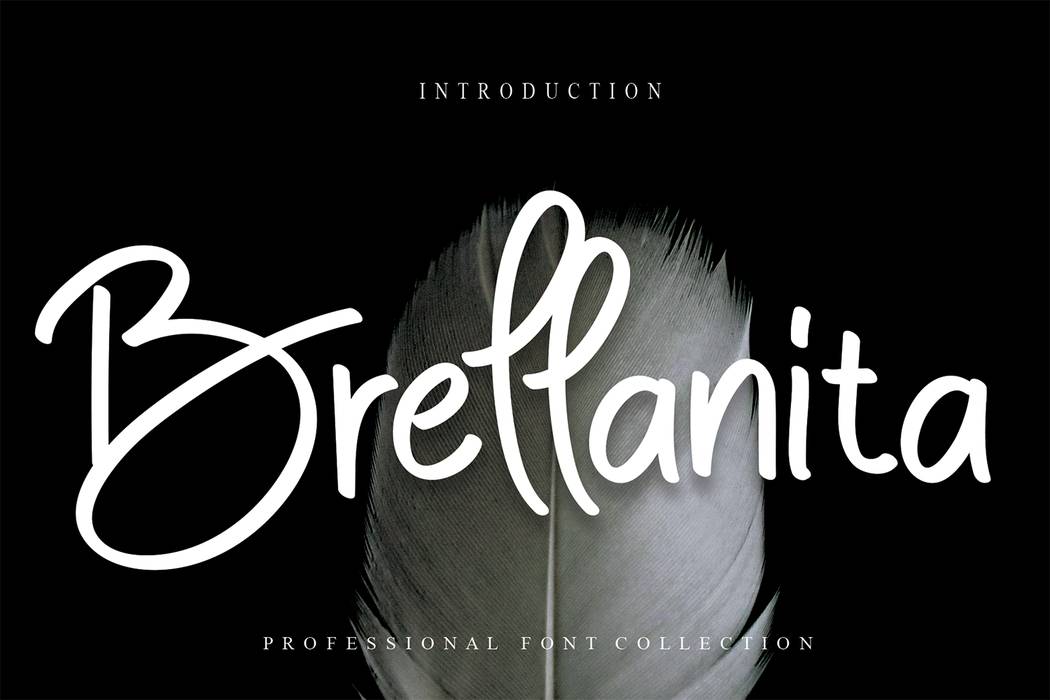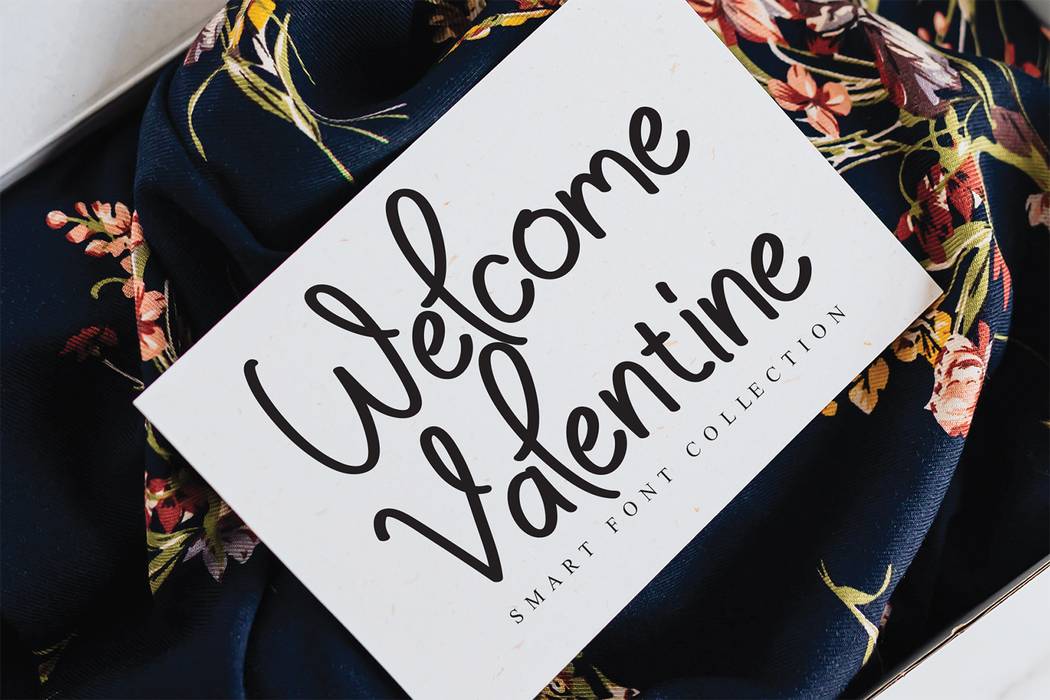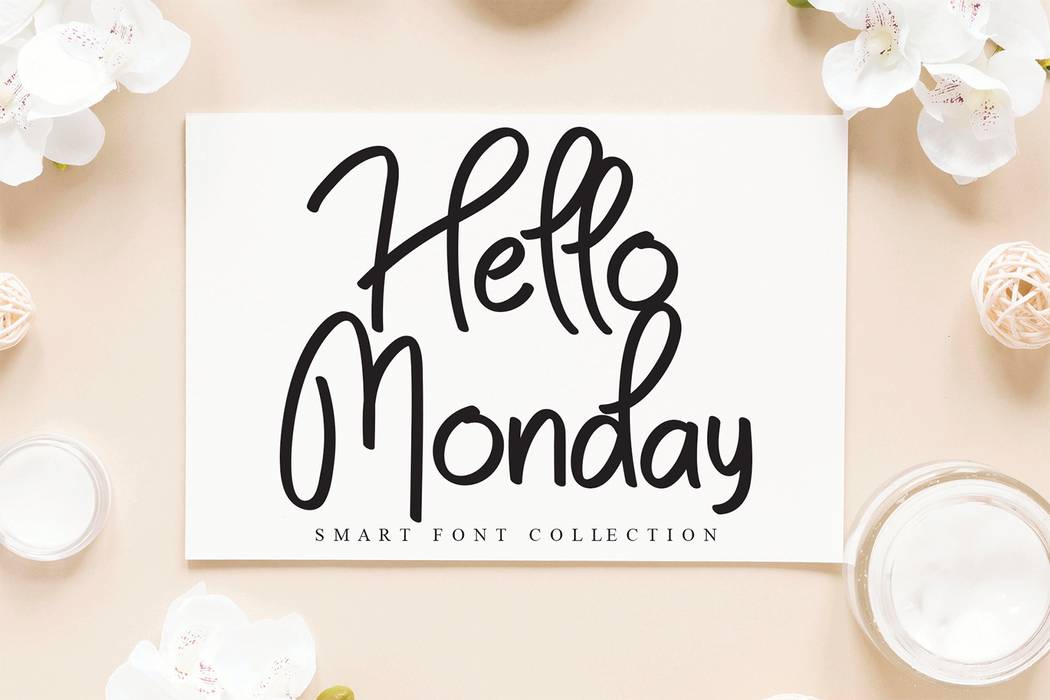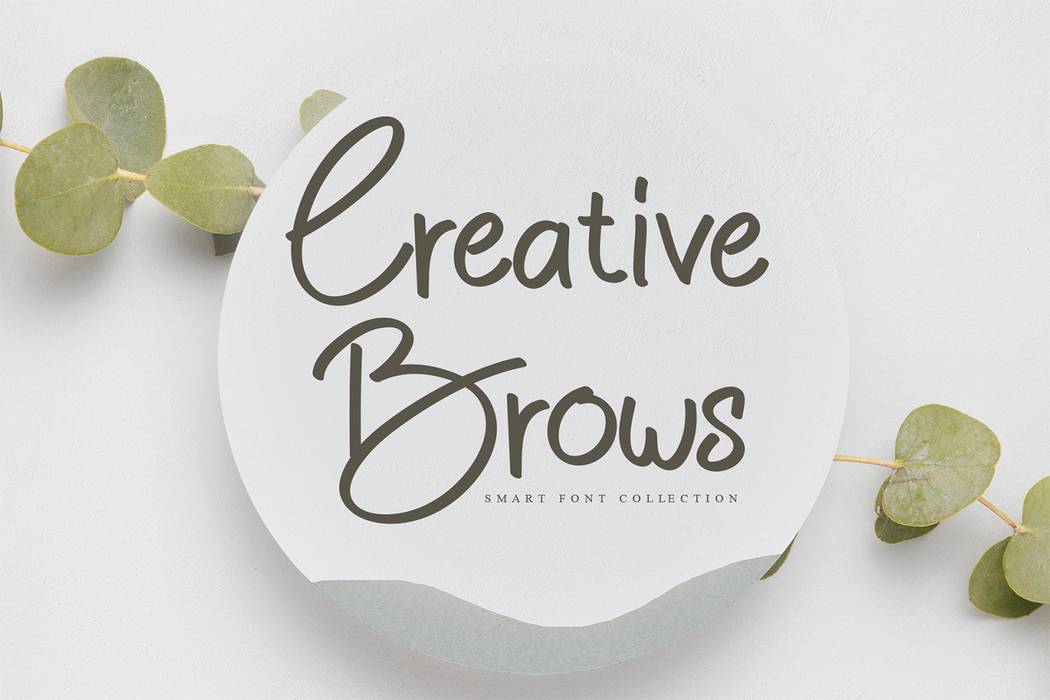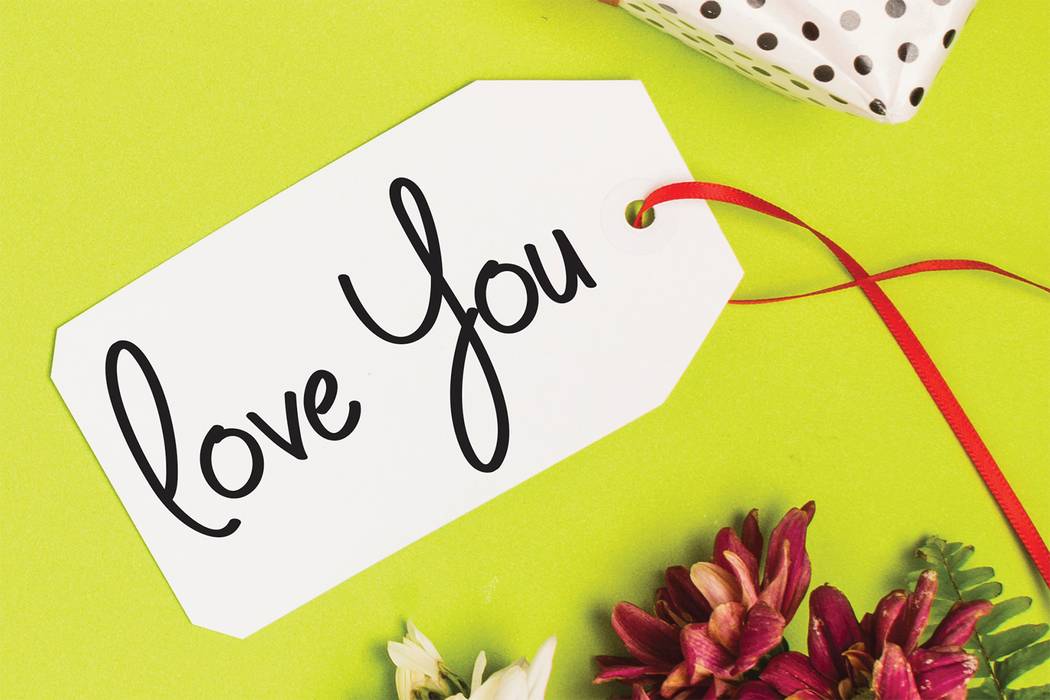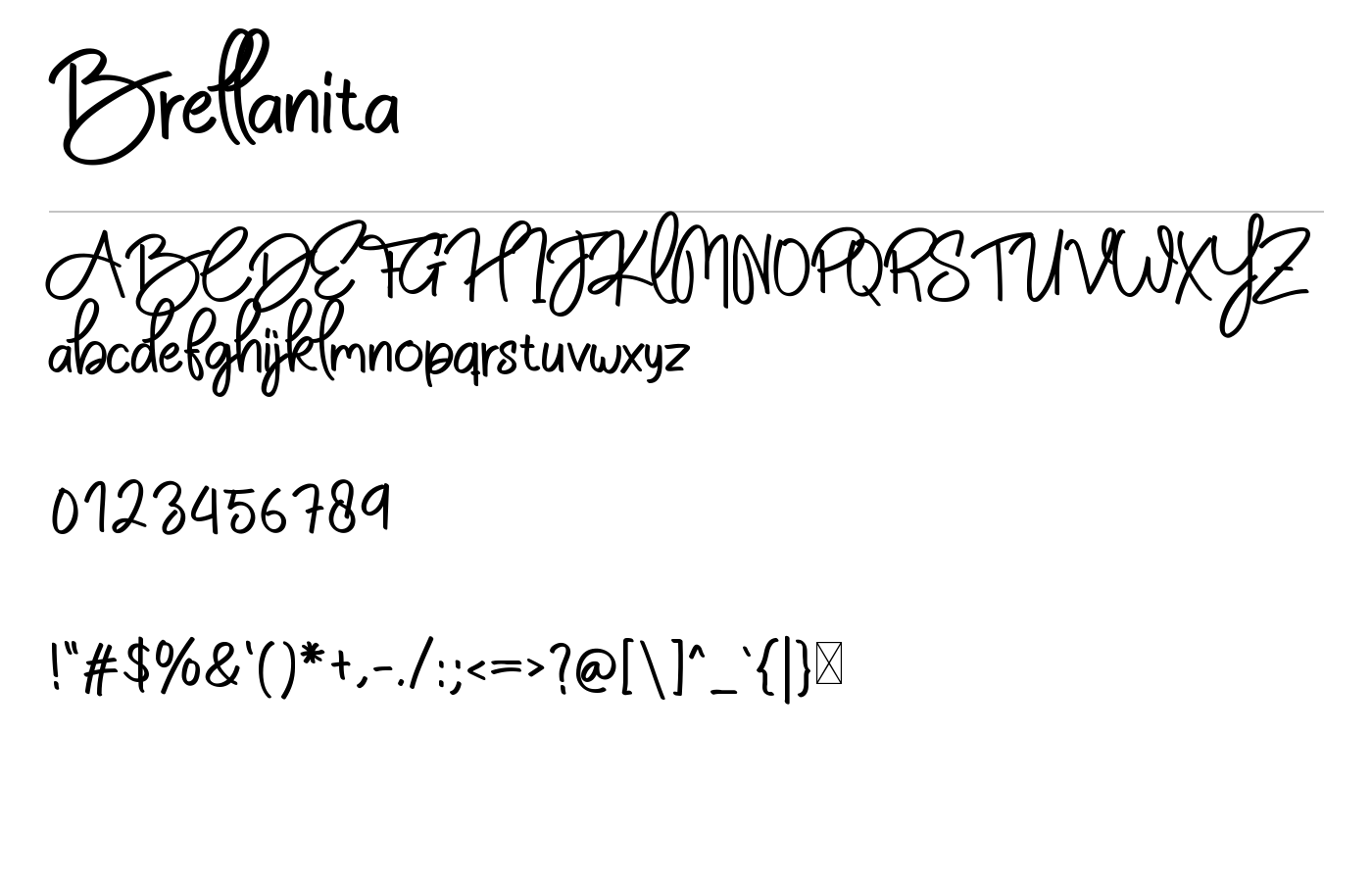
Brellanita is a playful and casual handwritten font characterized by its tall, narrow letterforms and lively, flowing strokes. Its friendly personality and slightly irregular lines make it perfect for creative projects that need a personal, approachable touch, such as invitations, branding, or social media graphics. This font works best in headlines or short text where its unique style can stand out and add charm.
Brellanita Font
About Brellanita Font